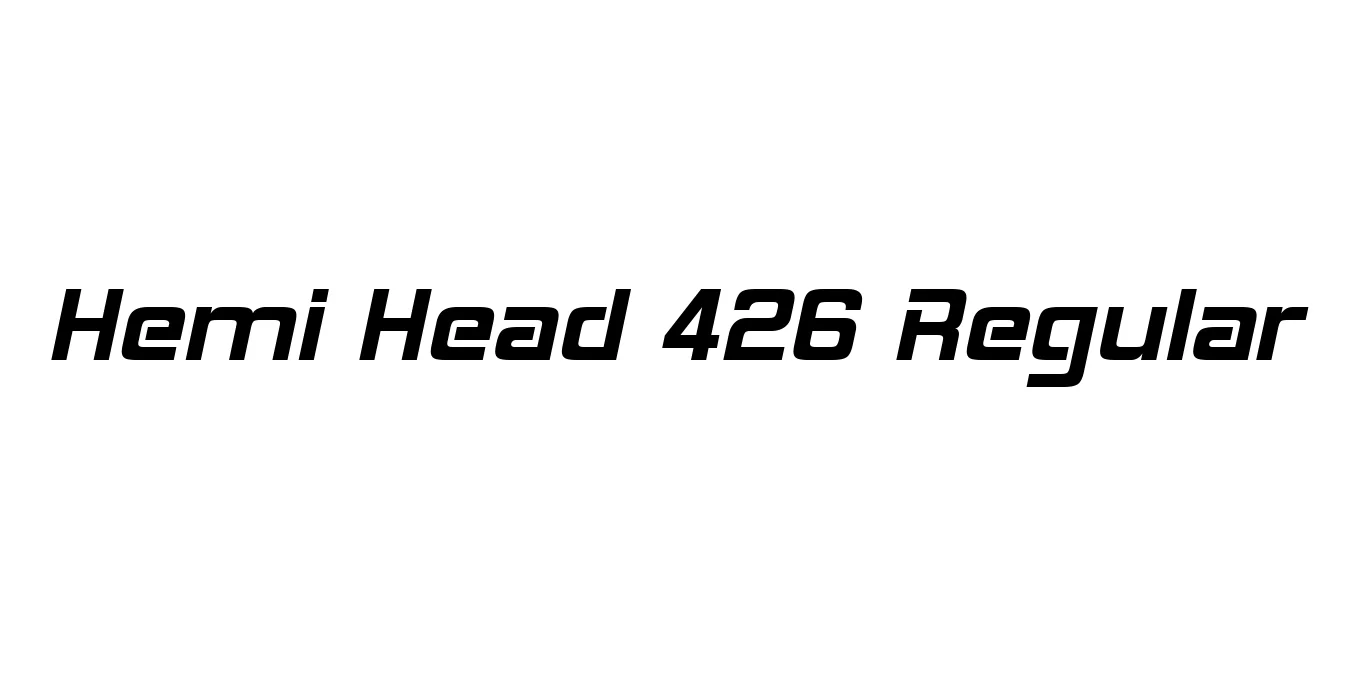
Hemi Head 426 Regular
Designed by Ray Larabie
| Category | Display / Sans Serif |
| Designer | Ray Larabie |
Hemi Head 426 Regular is a powerhouse techno-styled sans-serif typeface designed by Ray Larabie of Typodermic Fonts. Taking its inspiration from the robust and iconic automotive culture of the 1960s, the font is named after the legendary Chrysler 426 Hemi engine. Its design features squared-off curves, wide proportions, and a heavy-set appearance that communicates speed, strength, and mechanical precision.
Since its introduction, Hemi Head has become a definitive choice for automotive branding, sports marketing, and science-fiction aesthetics. The typeface's aggressive yet clean lines make it highly effective for display use, where it conveys a sense of industrial reliability and high-performance engineering. Its popularity remains high among designers seeking a font that balances vintage muscle-car vibes with a futuristic, digital edge.
Hemi Head 426 Regular Best Uses
Ideal for car logos, racing decals, and automotive performance parts packaging.
Perfect for high-speed racing games, flight simulators, or futuristic sci-fi interface elements.
Excellent for sports jerseys, athletic streetwear, and gym-related graphic designs.
Highly effective for event posters related to car shows, monster truck rallies, or engineering expos.